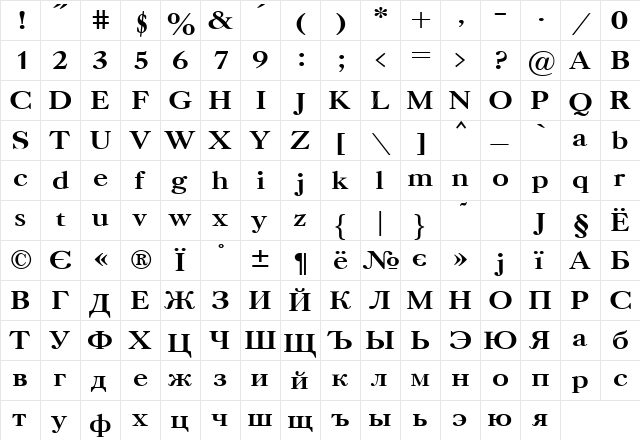
CaslonC Bold
Design Context for CaslonC Typeface
CaslonC takes a measured approach to typography — its balanced proportions and neutral character make it a reliable workhorse for both digital and print work. The heavy weight commands attention and anchors typographic hierarchies.